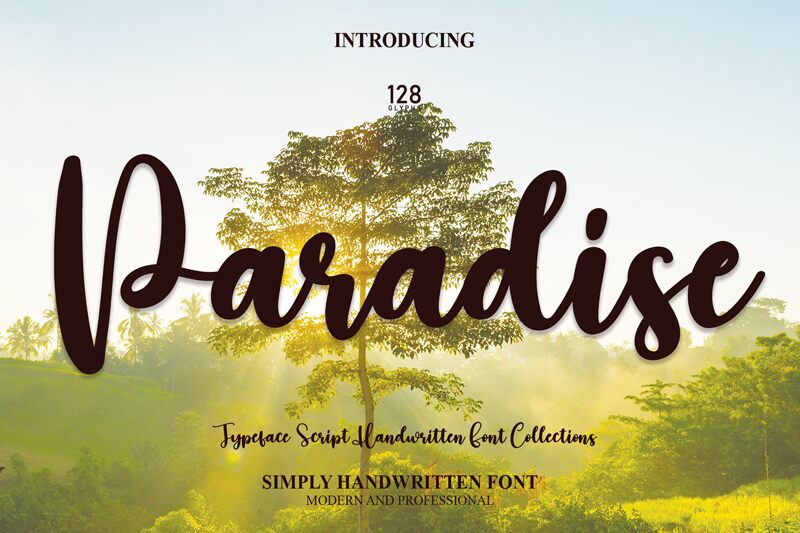
Paradise
Paradise, the creation of Scratchones, is a smooth brush font with a semi-bold weight. Its flowing curves and gentle strokes evoke a sense of elegance and sophistication. Designed for versatility, this font is perfect for both digital and print projects that require a touch of refinement.
Use Paradise to give your wedding invitations an exquisite flourish or add a dash of charm to your fashion blog. With its smooth brush style, this font effortlessly brings warmth and personality to any design endeavor.
Let Paradise be the brushstroke that completes your creative vision.